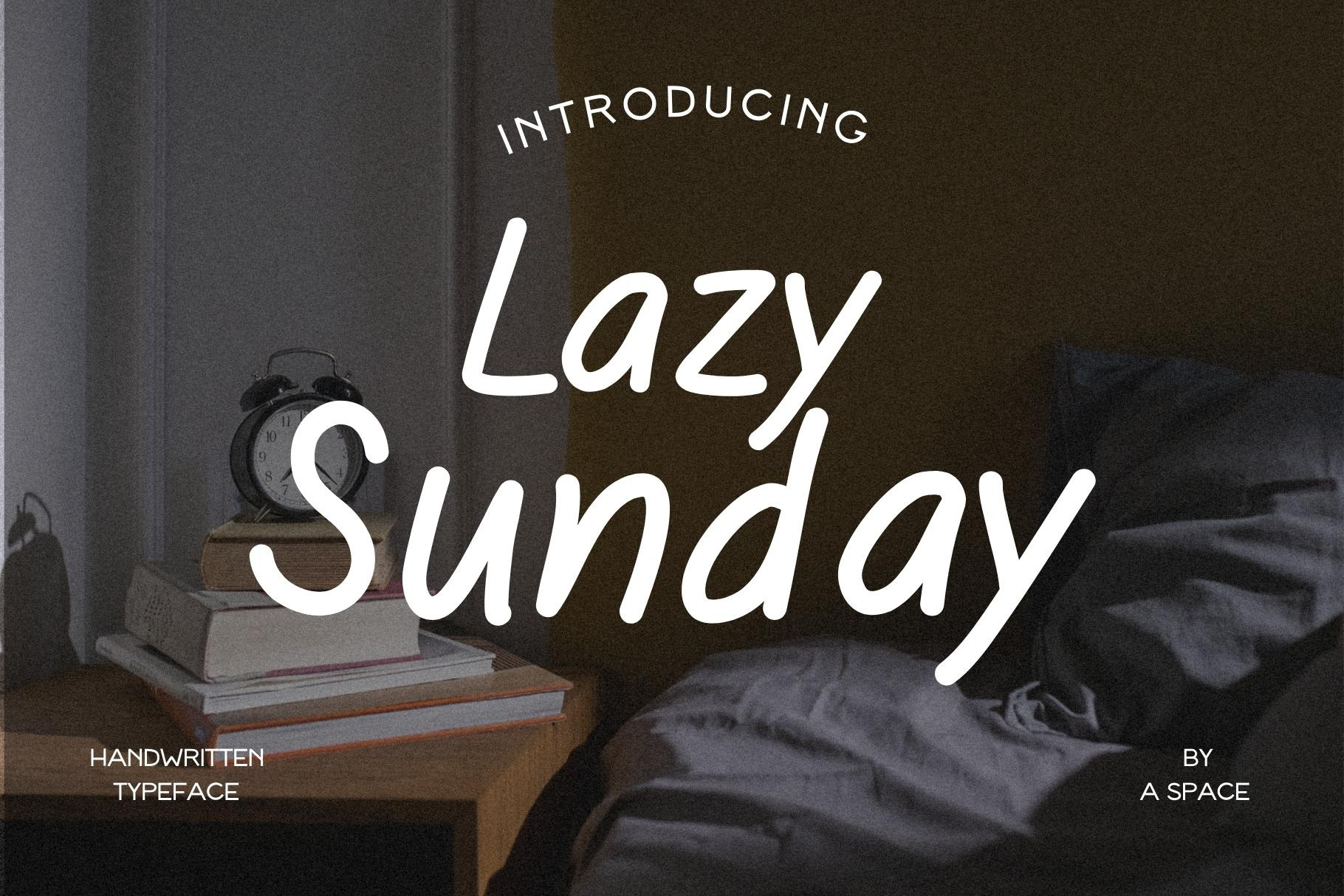
Lazy Sunday - Handwritten Font
Lazy Sunday is a hand-lettered font. This font can be used for anything such as shirt designs, cards, art, quotes, social media and so much more!